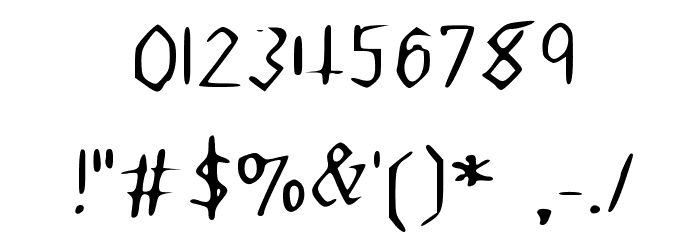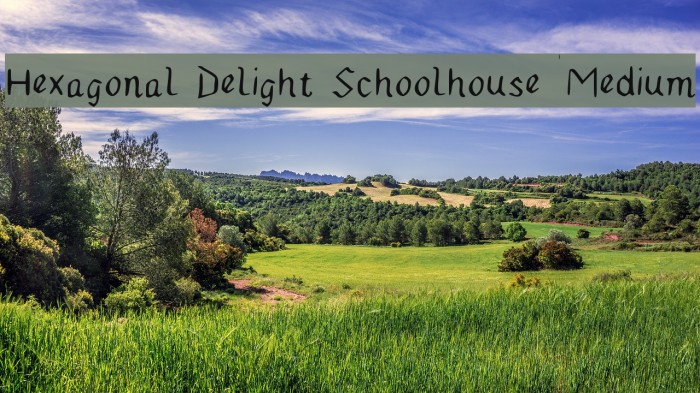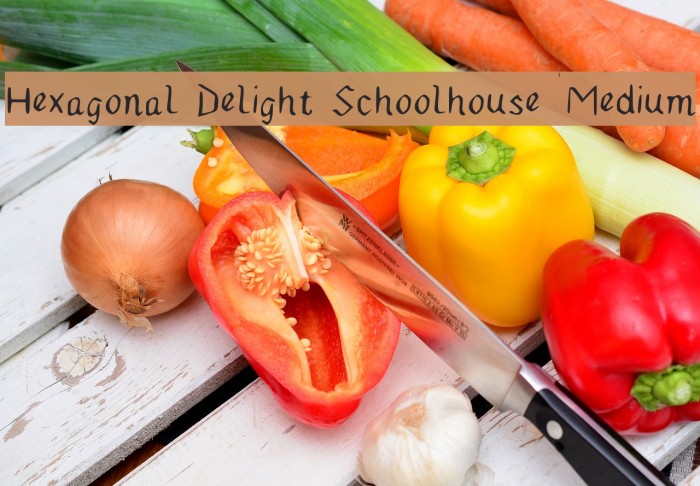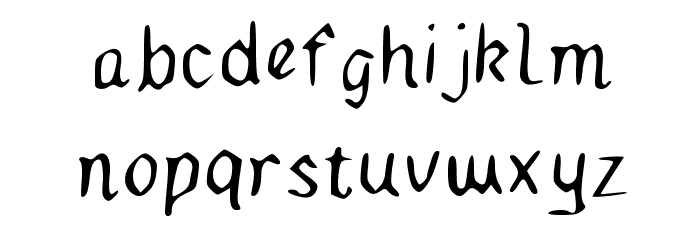
Hexagonal Delight Schoolhouse Medium Font
Hexagonal Delight Schoolhouse Medium Description
This font features a unique blend of geometric and organic elements, characterized by its hexagonal shapes and playful, schoolhouse-inspired design. The uppercase letters exhibit a distinct angularity, with sharp edges and a slightly uneven baseline, giving them a handcrafted feel. The lowercase letters maintain a consistent style, with rounded forms that contrast with the angular uppercase. Numbers and special characters follow the same design principles, ensuring a cohesive look across all glyphs. The font's medium weight provides a balanced appearance, making it suitable for various design applications. Its quirky and informal style adds a touch of whimsy, perfect for projects that require a fun and approachable aesthetic.
A playful, hexagonal-inspired font with a handcrafted, schoolhouse charm from Uncategorized fonts.
- Proposed Projects: Ideal for children's books, educational materials, playful branding, and creative posters.
- Overall Style: Playful, Handcrafted